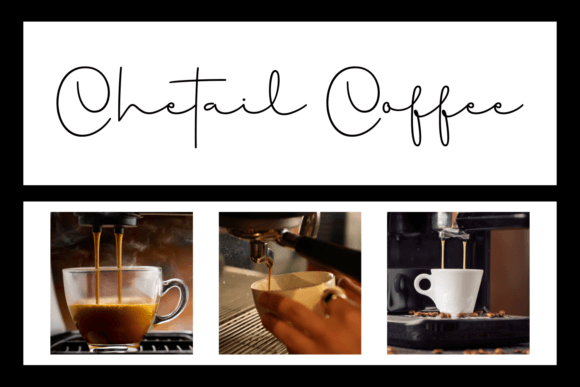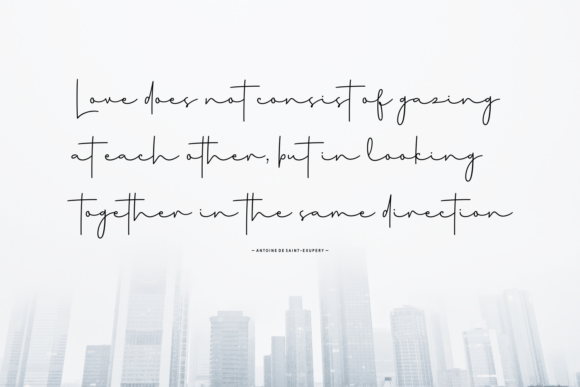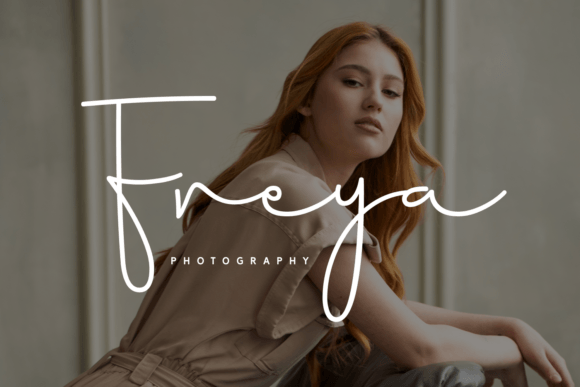
Introducing Doing Good Font: Elevate Your Designs with Sophistication and Elegance
In the world of typography, a good font can make all the difference in elevating your designs from ordinary to extraordinary. For designers and crafters seeking a touch of sophistication and elegance, the Doing Good font is an excellent choice. This beautiful, handwritten script font boasts a clean, modern look that is perfect for a wide range of creative projects.
The Characteristics of Doing Good Font
Doing Good is a sophisticated handwritten script font that is characterized by its smooth lines and subtle flourishes. Its refined style and understated charm make it an ideal choice for designers looking to add a classy, personal touch to their work. The font’s clean and modern look ensures that it can be easily paired with a variety of design elements, from minimalist graphics to more elaborate illustrations.
Ideal Uses for Doing Good Font
Due to its versatile nature, Doing Good font is suitable for a wide range of applications. Some of the ideal uses for this font include:
- Minimalist Designs: The font’s clean lines and subtle flourishes make it perfect for minimalist designs where simplicity and elegance are key.
- Branding: Doing Good font is an excellent choice for branding projects, as it can help to create a sophisticated and memorable visual identity for your business.
- Social Media Posts: The font’s modern look and feel make it well-suited for social media posts, where it can help to elevate your content and make it stand out from the crowd.
- Elegant Invitations: Whether you’re designing wedding invitations, birthday party invites, or other special event announcements, Doing Good font is a great choice for adding a touch of elegance and sophistication.
Benefits of Using Doing Good Font
There are several benefits to using Doing Good font in your designs. Some of the key advantages include:
- Unique and Memorable: The font’s distinctive look and feel make it a great choice for designers looking to create unique and memorable designs.
- Highly Versatile: Doing Good font can be used for a wide range of projects, from minimalist designs to more elaborate illustrations.
- Easy to Read: The font’s clean lines and simple design make it easy to read, even at smaller sizes.
- Customizable: As a digital font, Doing Good can be easily customized to suit your design needs, including adjusting the size, color, and style.
Tips for Using Doing Good Font Effectively
To get the most out of Doing Good font, here are a few tips to keep in mind:
- Pair with Complementary Fonts: To create visual interest and add depth to your designs, consider pairing Doing Good font with complementary fonts that have contrasting styles.
- Use for Headings and Titles: The font’s elegant and sophisticated look make it well-suited for use in headings and titles, where it can help to create a strong visual impact.
- Experiment with Colors: Don’t be afraid to experiment with different colors and textures to add visual interest to your designs and make the font stand out.
In conclusion, the Doing Good font is a sophisticated and elegant handwritten script font that is perfect for designers and crafters looking to add a touch of class and sophistication to their work. With its clean lines, subtle flourishes, and refined style, this font is ideal for a wide range of creative projects, from minimalist designs to elegant invitations. By incorporating Doing Good font into your designs, you can create unique and memorable visuals that are sure to leave a lasting impression.
Whether you’re a professional designer or a crafter looking to elevate your work, Doing Good font is an excellent choice. So why not give it a try and see the difference it can make in your designs?